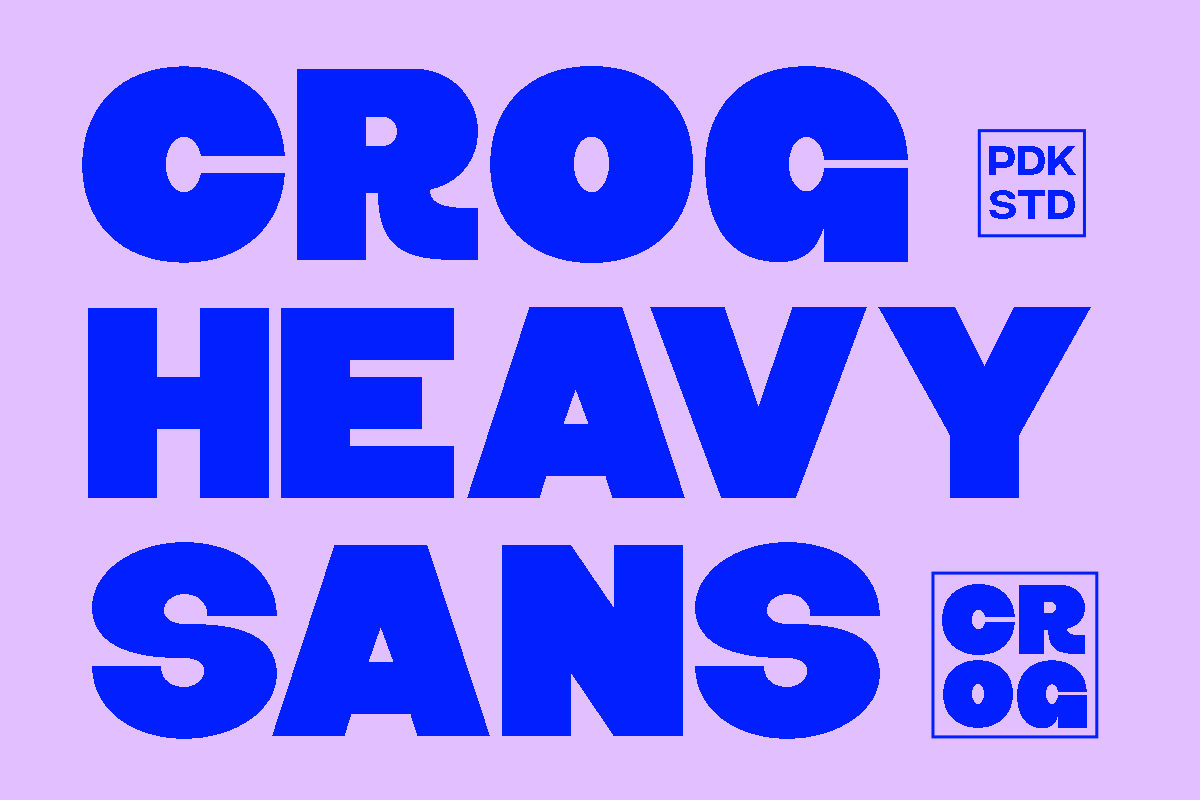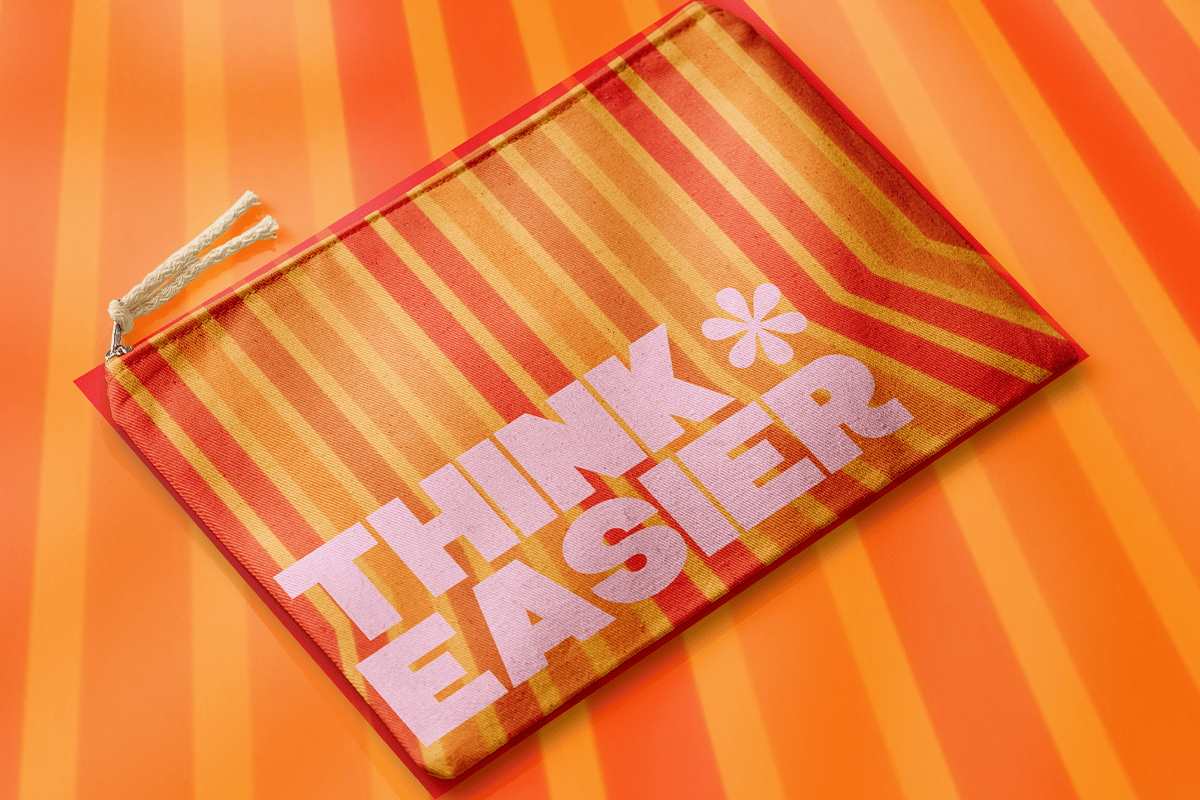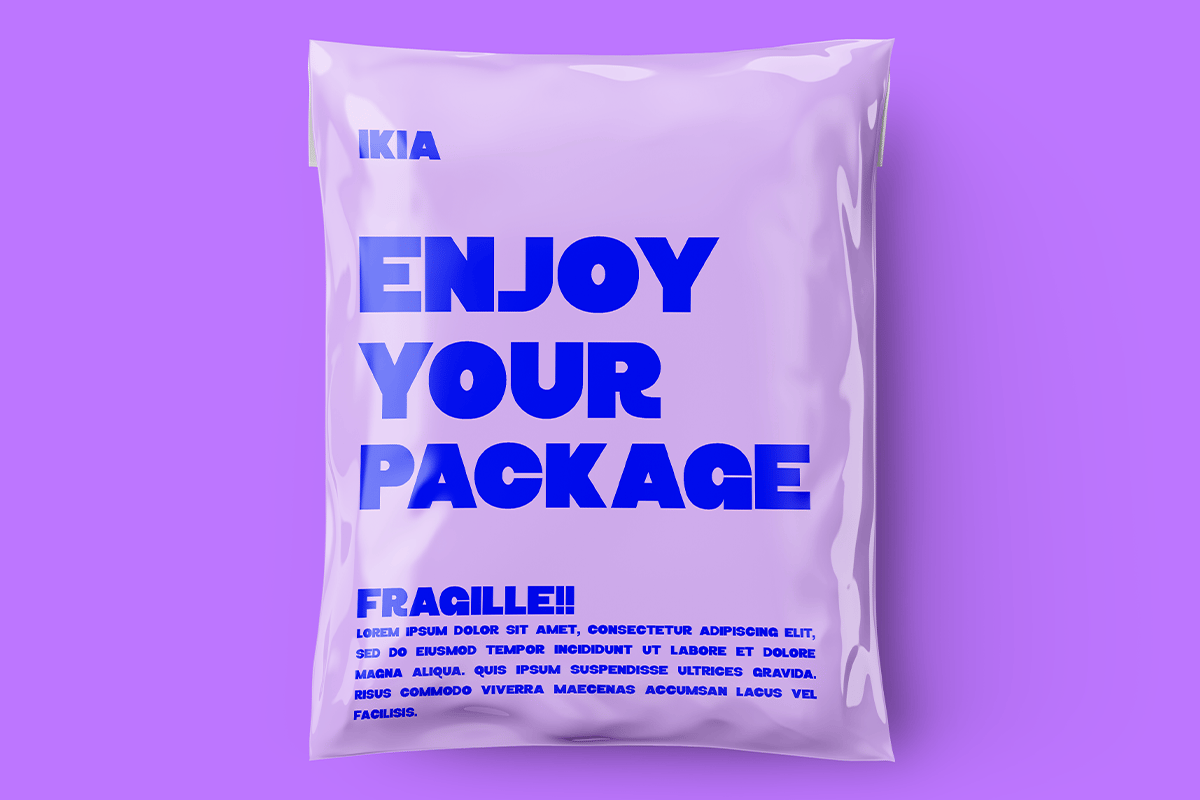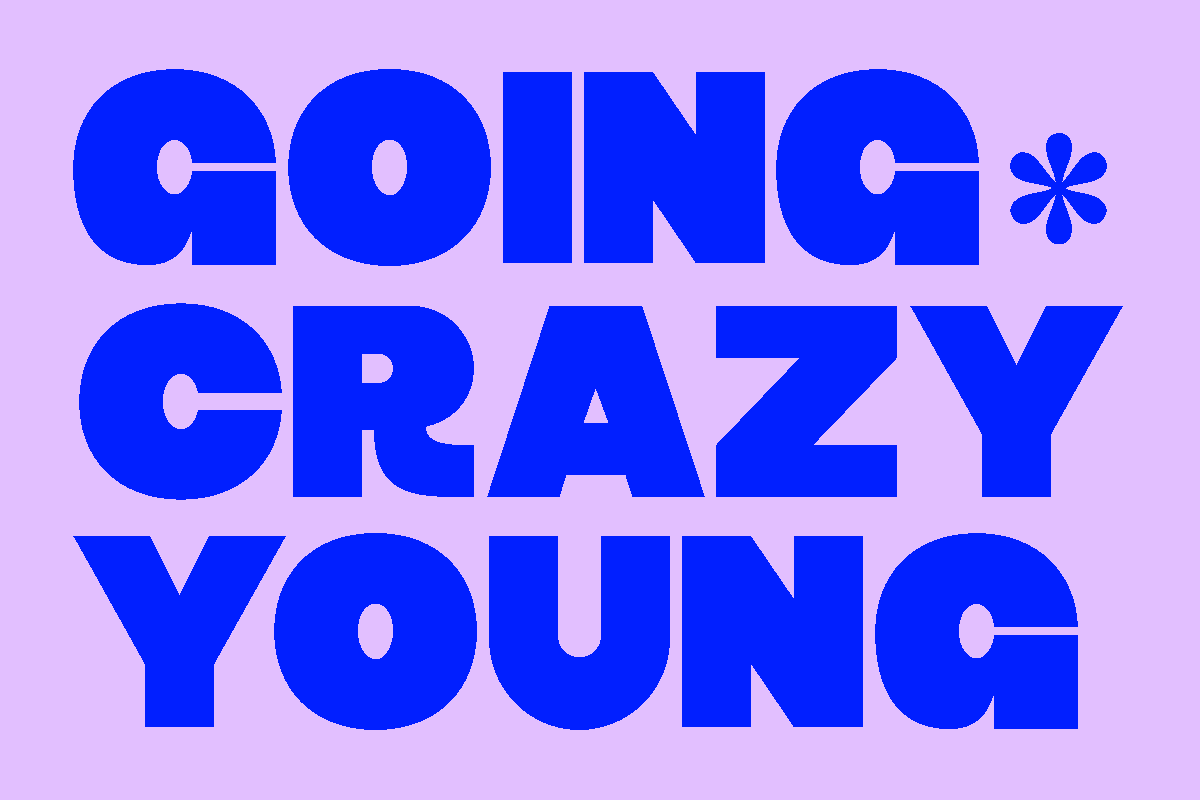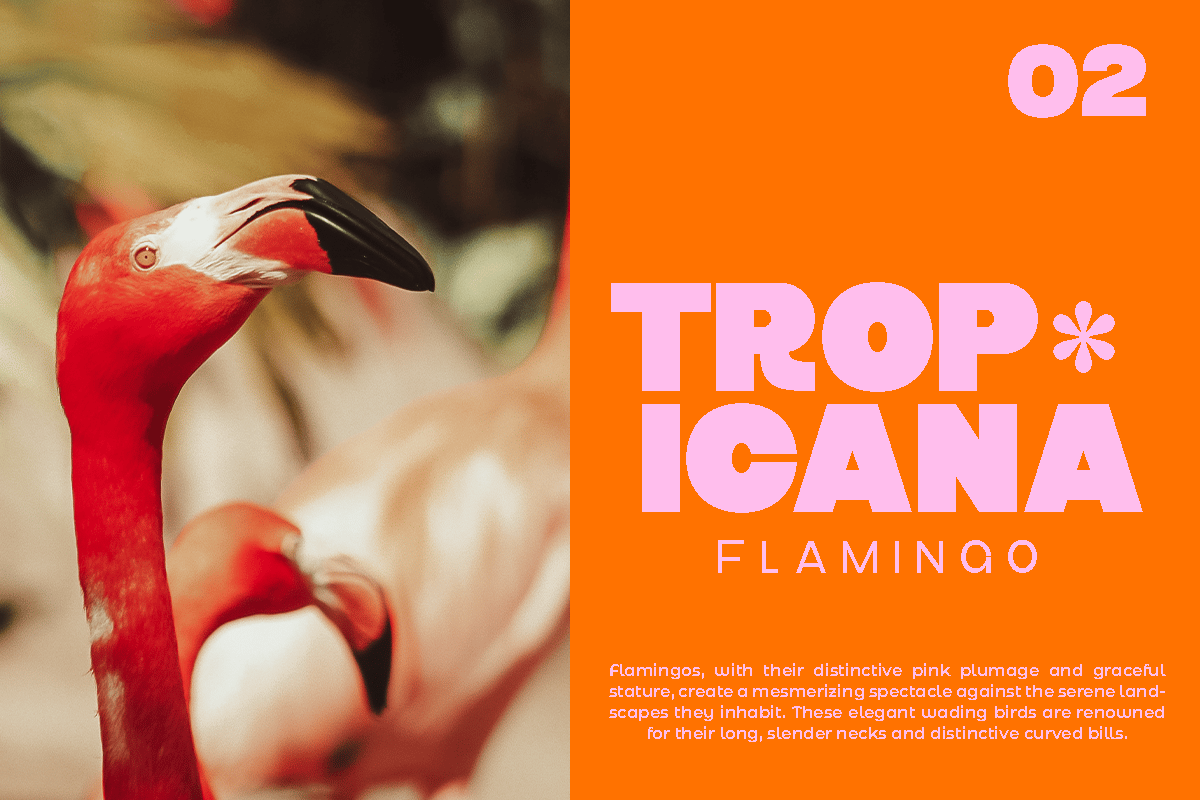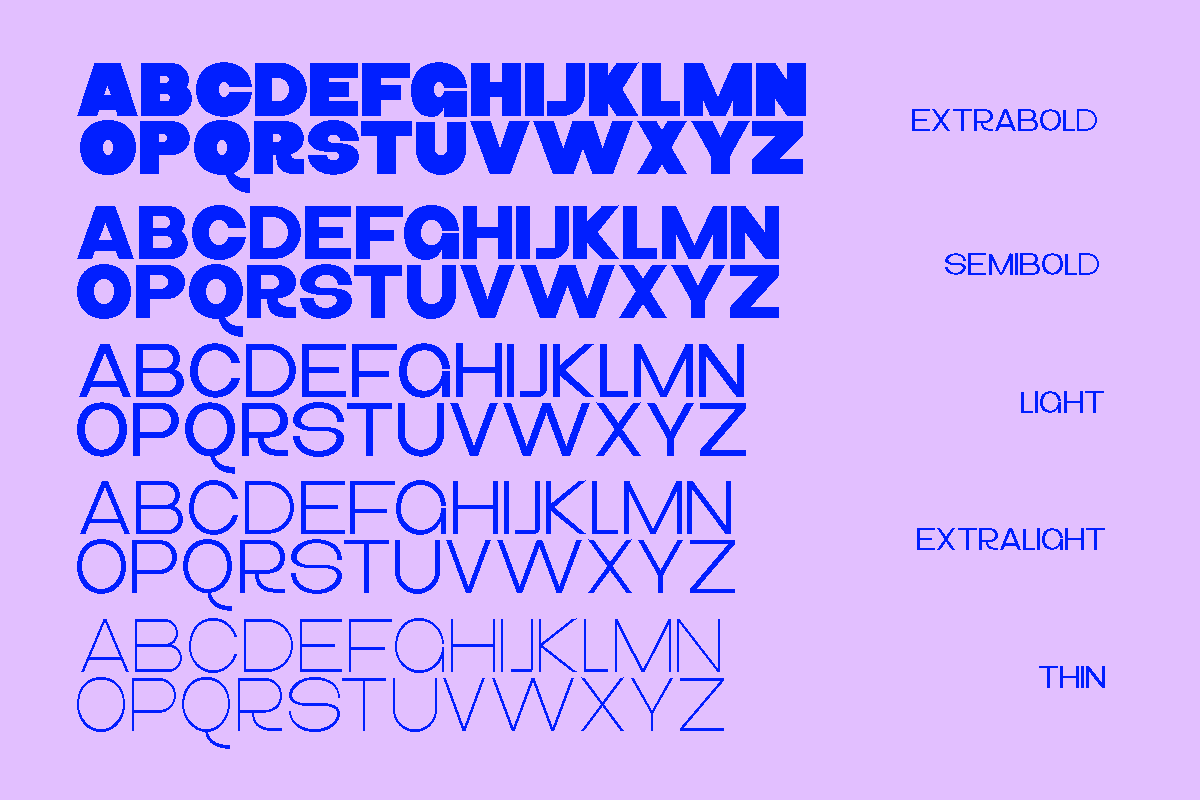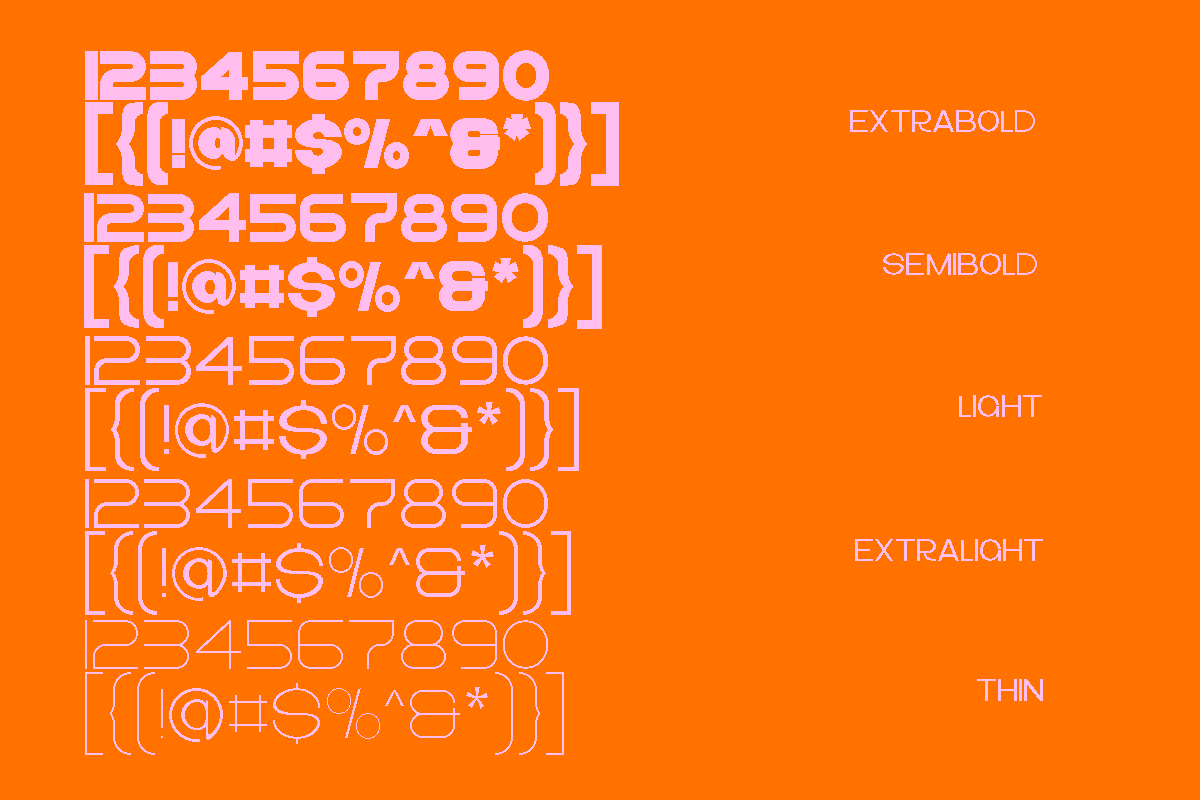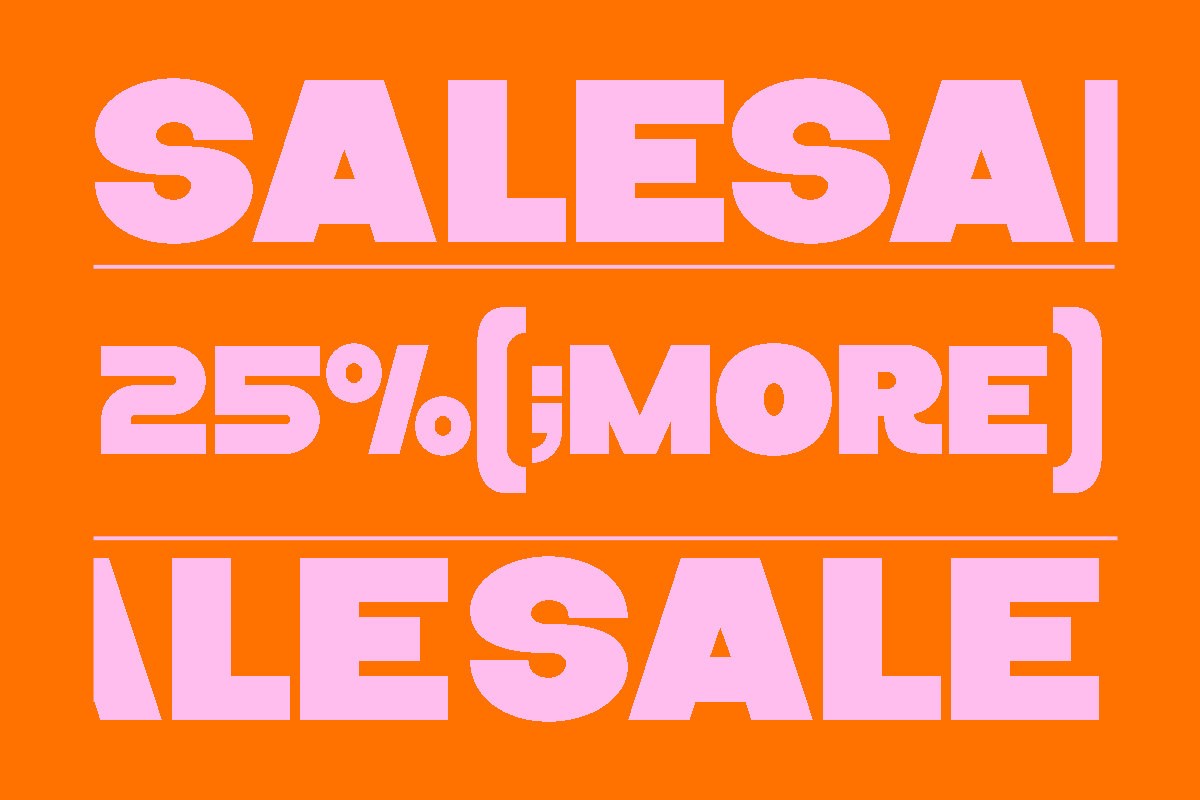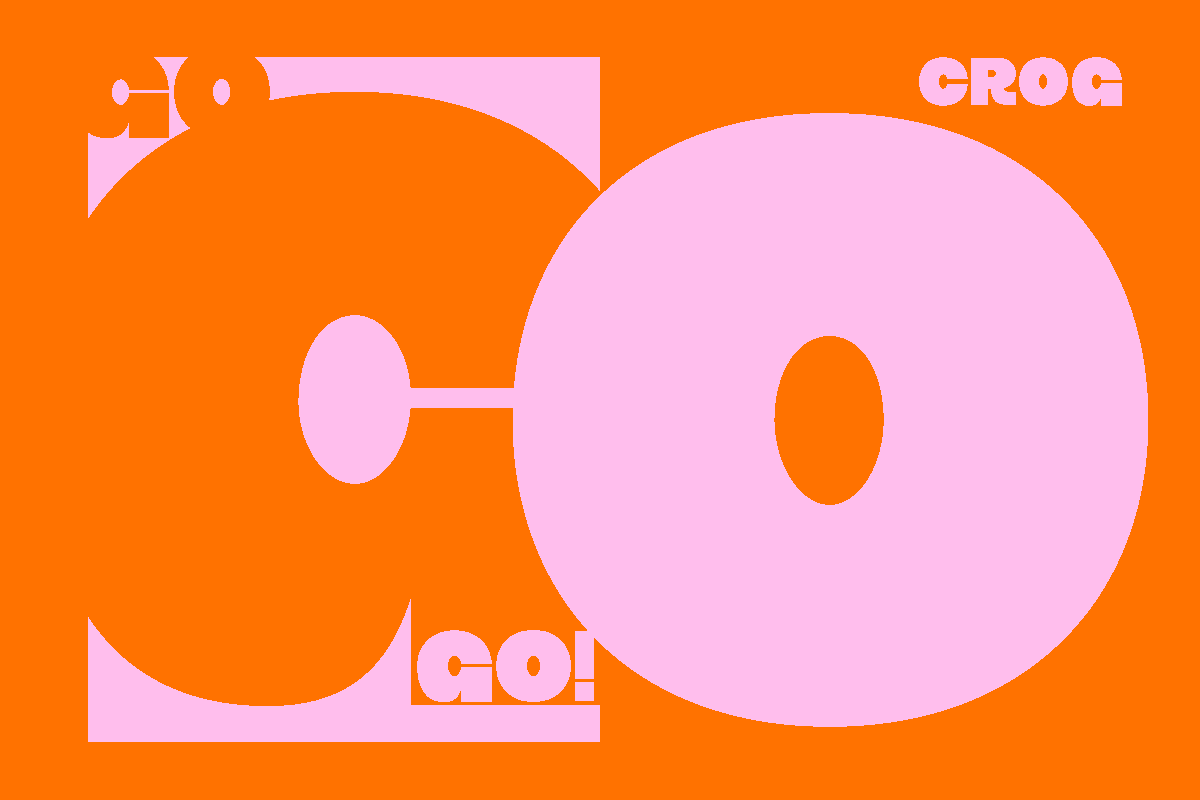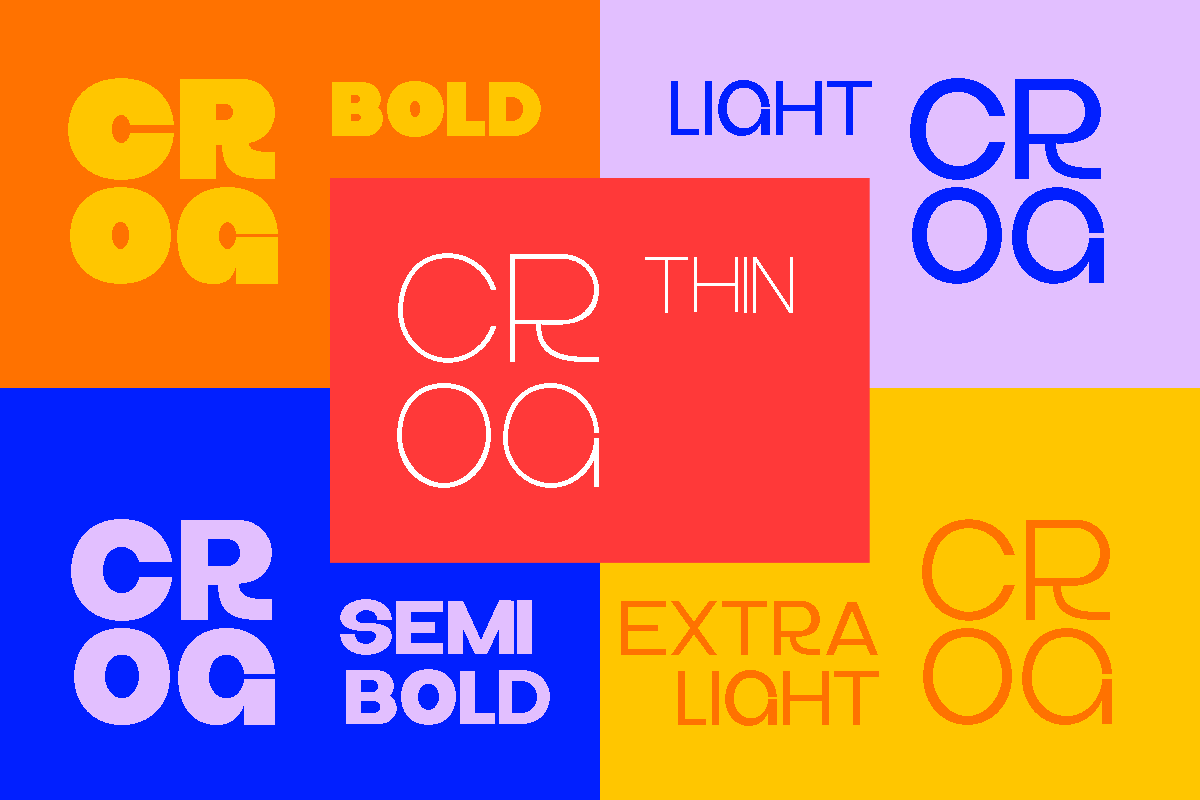
Crog – Modern Logo Font
Crog is a big heavy sans that available in 9 family variations (Thin, Extra Light, Light, Regular, Medium, Semi Bold, Bold, ExtraBold, Black)
Crog is a chunky, funky, loud, and cutely proud kinda font. Crog is playful, and bold while not being shouty with its soft corner. Its large real estate means it’s perfect for an image-fill effect while still being legible.
It’s the kinda font that looks like you wanna give it a big hug!